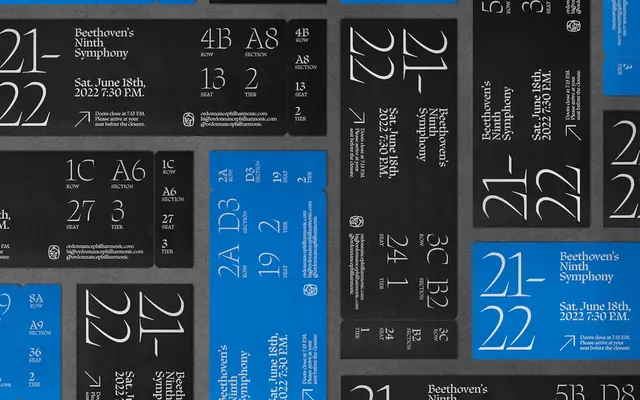
Etude
A calligraphic stencil typeface by Emily Atwood, drawing on broad nib music notation history and the 18th-century stencil manuscripts of Jean-Pierre Rousselet.
Designed by Emily Atwood and mastered by Alphabet Type, Etude takes its construction logic from the exposed entry and exit points of a broad nib pen rather than from the more common broken-roman stencil tradition. Its three weights, Light, Regular and Bold, are framed as a crescendo: delicate and soft in Light, increasingly prominent in Bold. Historical reference points include Hermann Zapf's Alkor Notenschrift, Louis Simmoneau's 1701 engravings and Rousselet's 1719 liturgical manuscript for Louis XV.
Etude is a stencil typeface with translation contrast derived from broad nib calligraphy and historical handwritten music notation; its exposed entry and exit points and calligraphic construction distinguish it clearly from broken-roman stencils, placing it firmly in the display category.